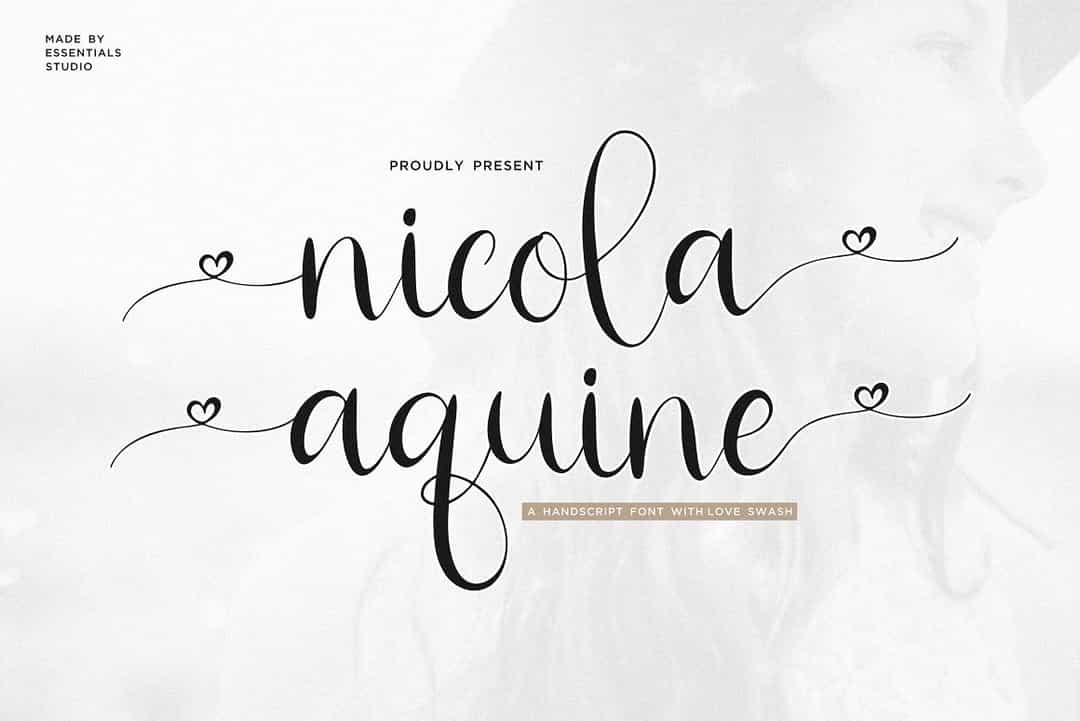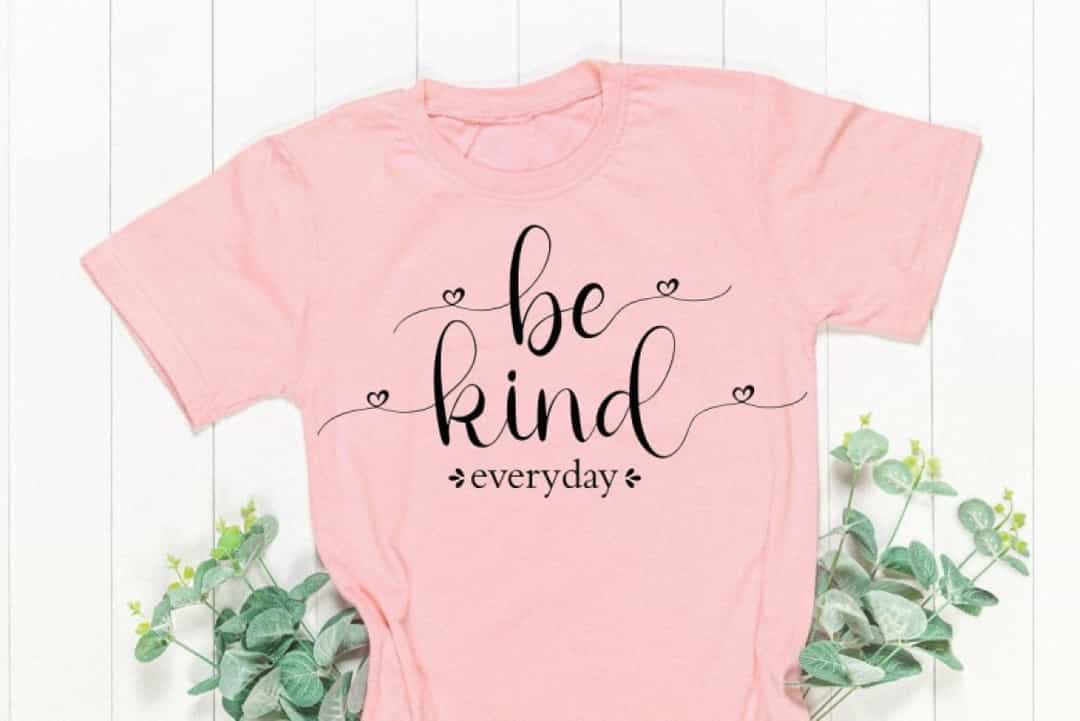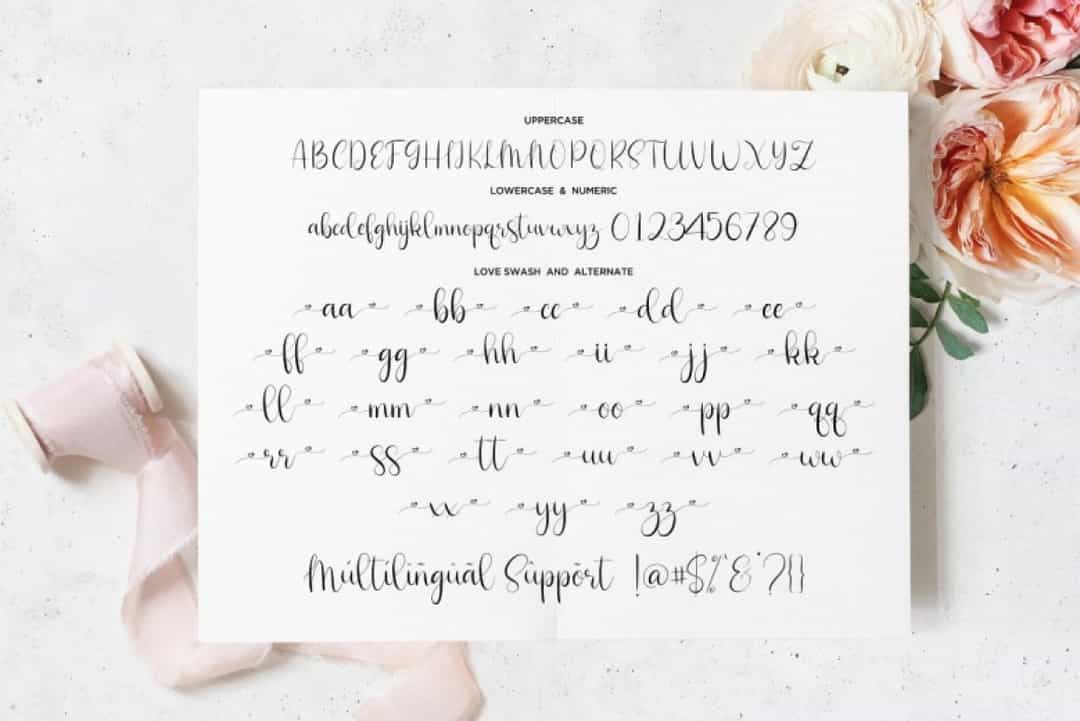
Nicole Aquine is a contemporary script calligraphy font featuring love swashes and alternates that add the perfect romantic touch. Ideal for branding purposes, packaging projects magazines weddings social media posts or simply to express words over a background it makes an excellent addition.